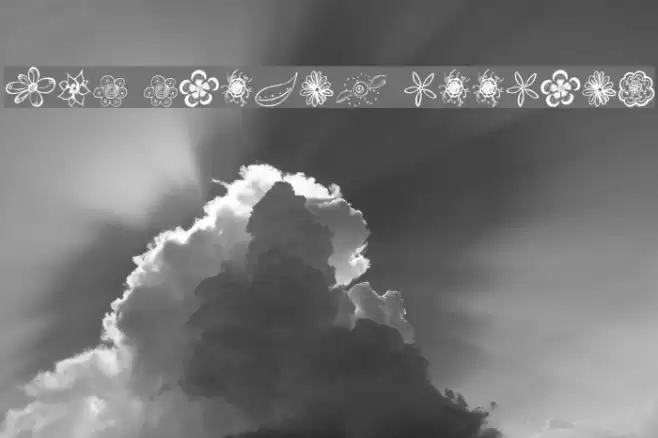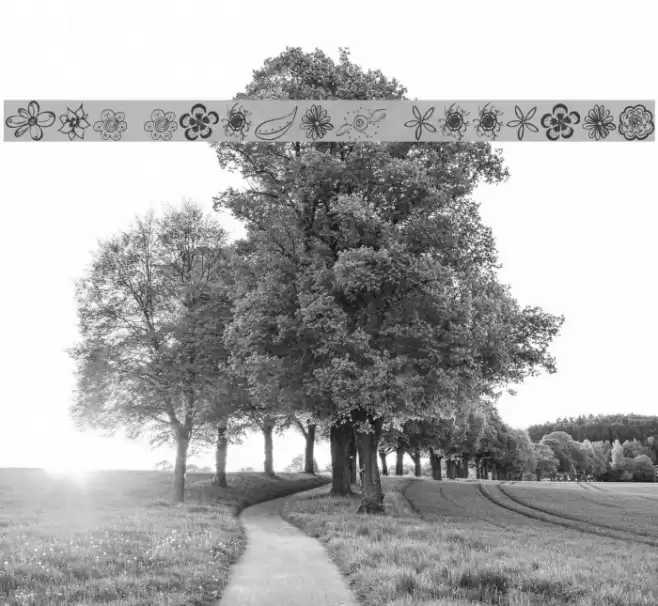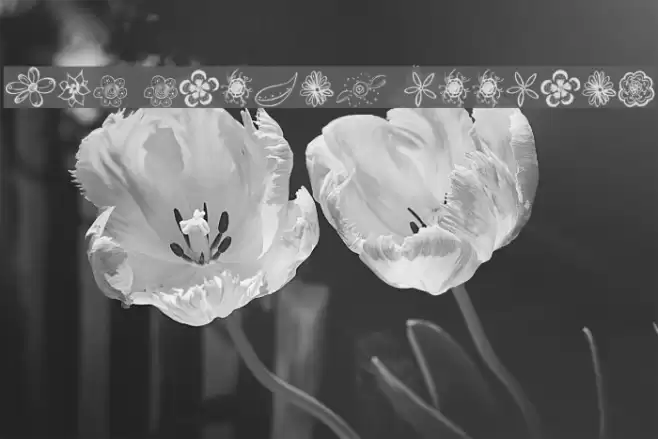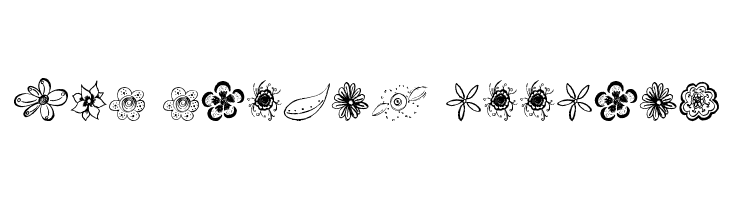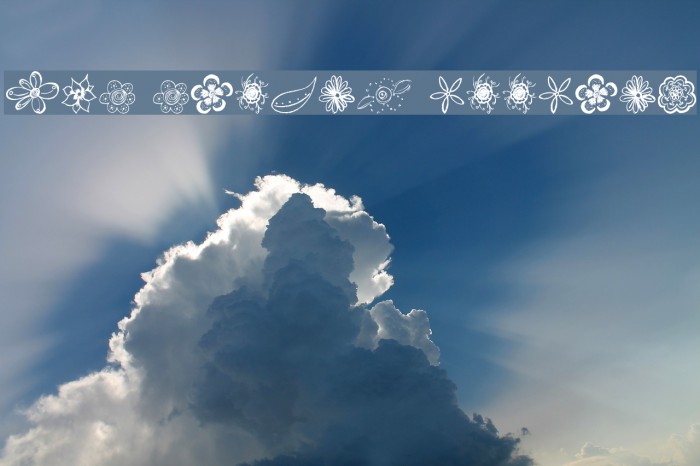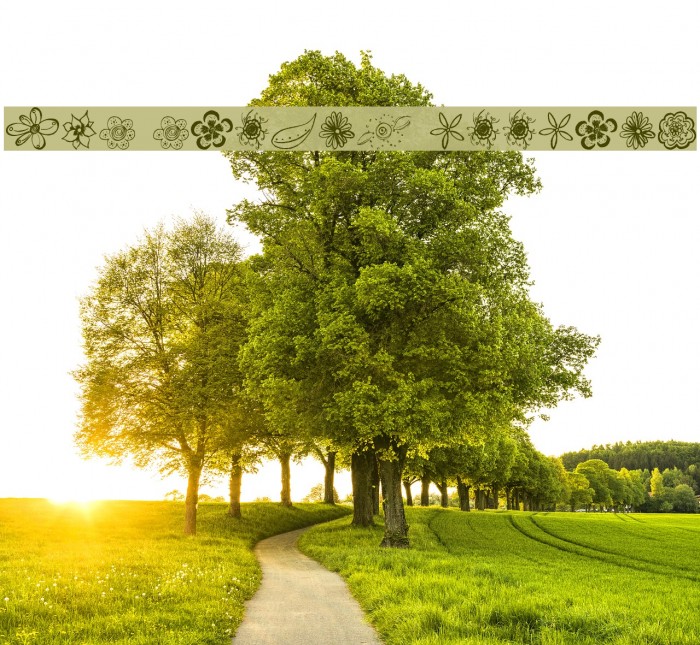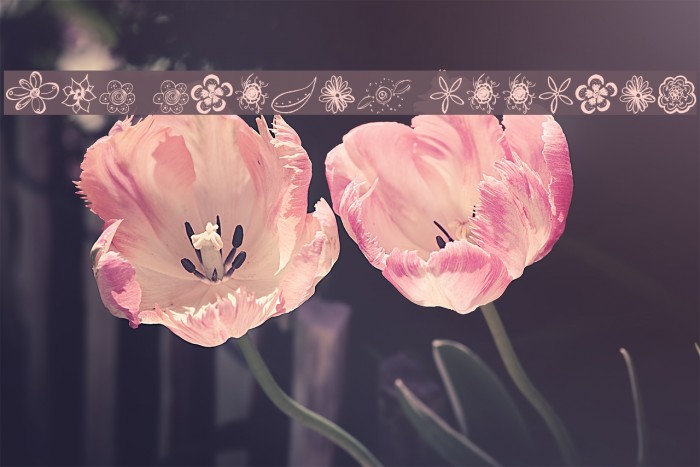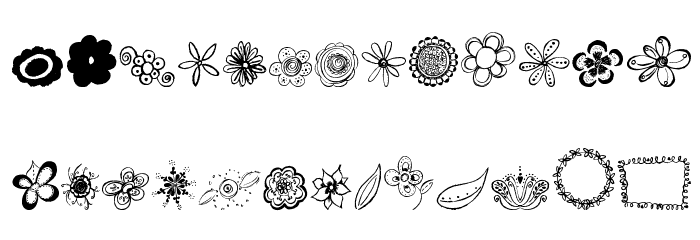
MTF Flower Doodles Font
MTF Flower Doodles Description
A playful decorative set of hand-drawn floral doodles, featuring a variety of whimsical flowers, leaves, and frames in both filled and outline styles. The designs are irregular, organic, and have a sketch-like quality.
- Proposed Projects: Scrapbooking, greeting cards, invitations, decorative borders, children's projects, digital stickers.
- Overall Style: Decorative, Playful, Hand-drawn
- Use Case: Decorative elements, Borders, Accents